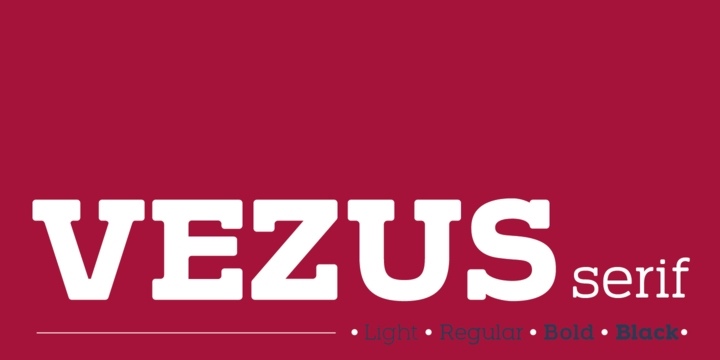
Vezus Serif Font
Vezus Serif Font is perfect for luxury brand identity, premium publishing projects, high-end corporate communications, sophisticated magazine layouts, upscale restaurant branding, exclusive hotel signage, financial services marketing, and refined business presentations.
What makes Vezus Serif Font exciting is its aristocratic elegance that embodies timeless sophistication and refined taste through classical serif craftsmanship. The font features distinguished letterforms with perfect proportions and noble character that evoke fine literature, established institutions, and the enduring appeal of traditional typography. Its distinctive classical styling and premium appeal communicate authority, heritage, and sophisticated excellence, making every message feel grounded in tradition and elevated by centuries of typographic refinement.
The Vezus Serif Font family includes regular weight with uppercase and lowercase letters, numerals, punctuation marks, and comprehensive special characters. Premium versions often feature multiple weights, italics, and elegant alternates that provide complete typographic solutions for sophisticated branding systems.
This distinguished classical typeface brings instant prestige and editorial credibility to any luxury-focused project. Vezus Serif Font Free Download offers exceptional value for organizations seeking to communicate established authority, cultural sophistication, and premium quality to discerning professional and cultural audiences.
The authoritative character of Vezus Serif Font makes it particularly valuable for luxury service firms, cultural institutions, and premium publishing houses. Its excellent readability across print and digital applications ensures sophisticated content remains accessible while maintaining the distinctive classical aesthetic that appeals to educated audiences seeking quality and intellectual depth.
Brand strategists and editorial designers appreciate how Vezus Serif Font effortlessly conveys institutional credibility and cultural sophistication. The font's classical proportions and refined details create authoritative brand materials that establish trust with audiences who value heritage, intellectual rigor, and the timeless appeal of traditional excellence.
The versatile sophistication of this typeface extends to law firms, academic institutions, and luxury consulting where classical authority enhances professional credibility. Vezus Serif Font Free Download provides creative professionals with an essential tool for developing memorable, authority-driven designs that resonate with audiences who embrace classical education, cultural refinement, and the enduring power of traditional typographic excellence in sophisticated communication.